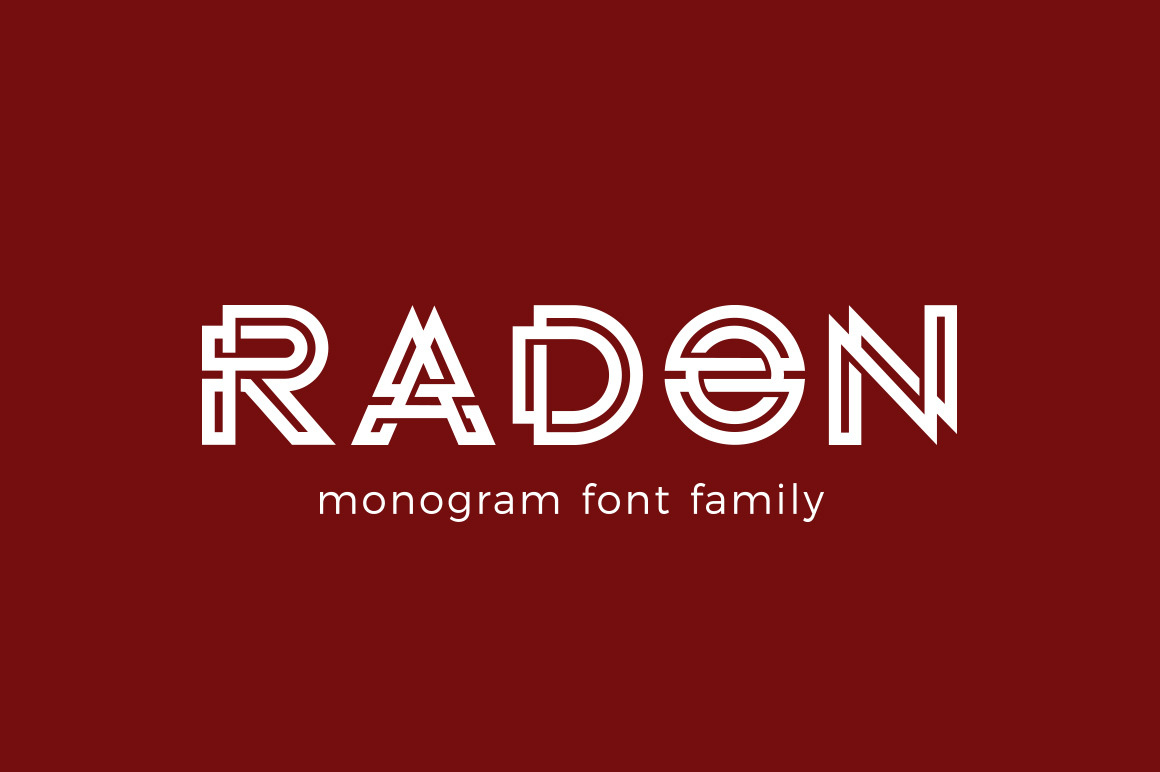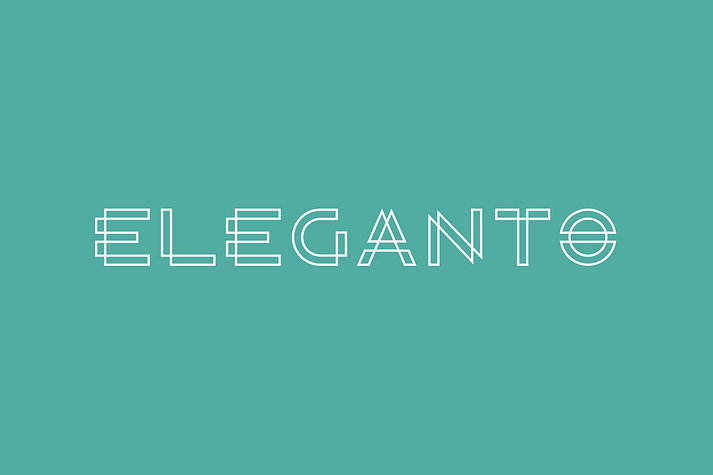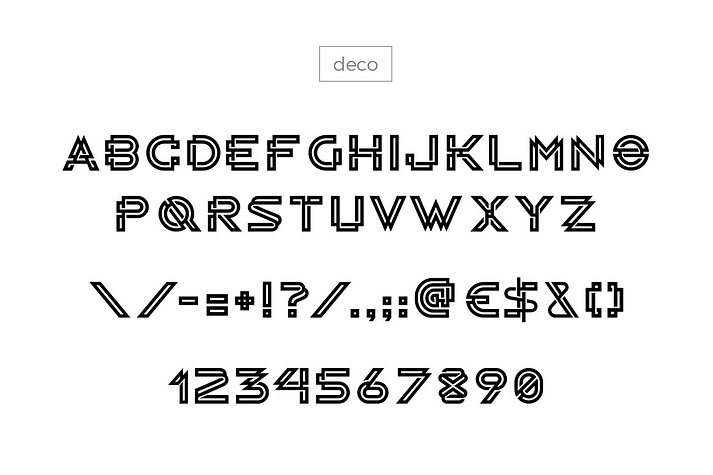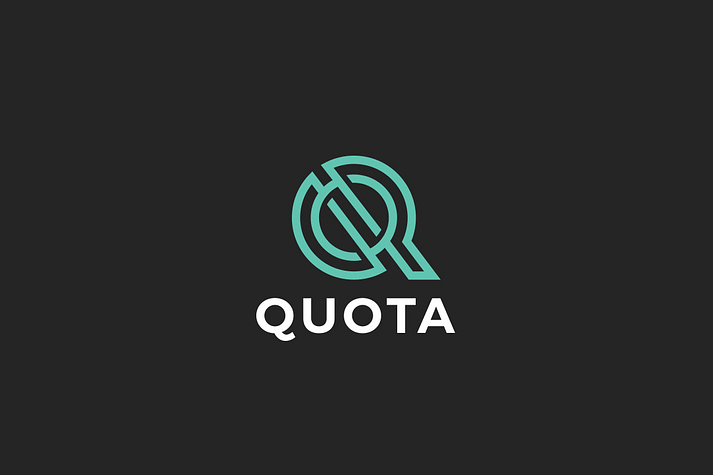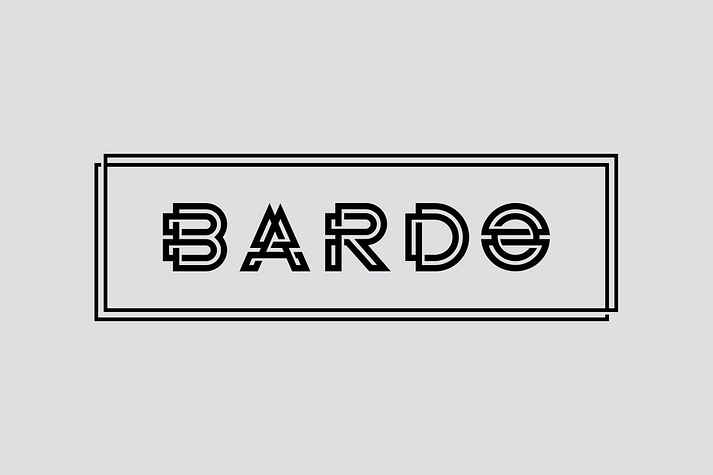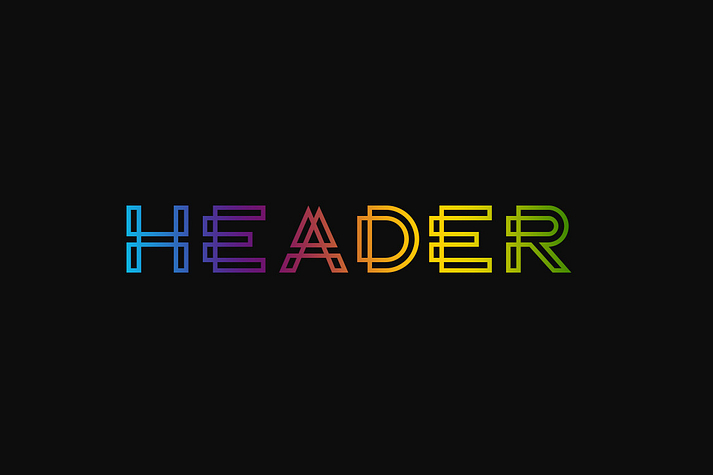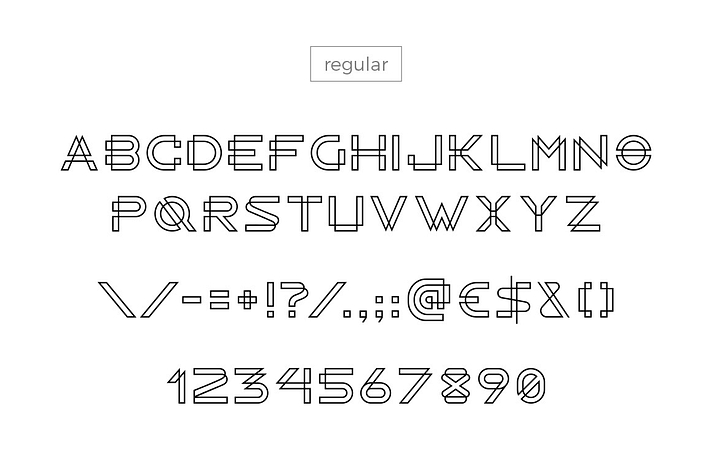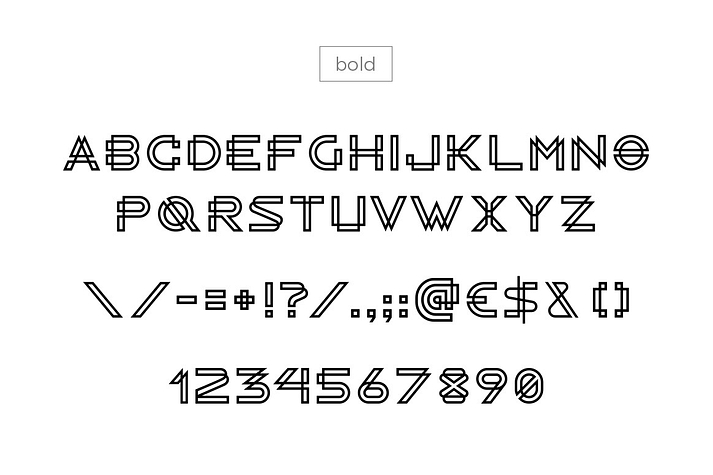
Radon
Radon is an art deco font family. This typeface has three styles and was published by Sentavio.
RADON is stylish creative font family useful for creating titles, monograms and logos.
It consists of three types:
• Regular
• Bold
• Deco